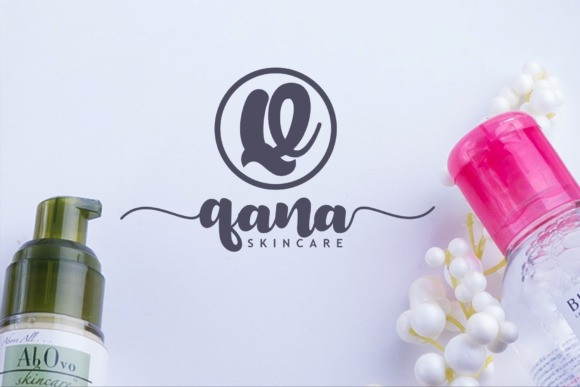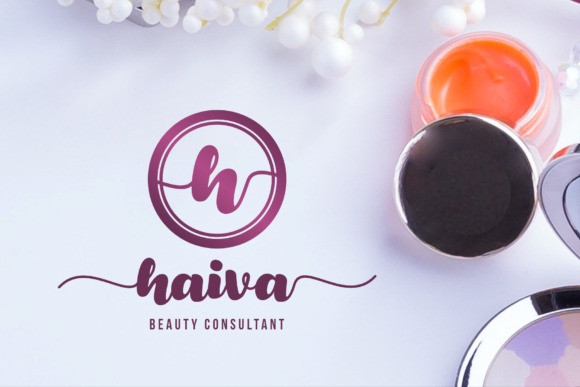
Meylani Script Font
Meylani feels equally charming and elegant. It looks stunning on wedding invitations, thank you cards, quotes, greeting cards, logos, business cards and every other design which needs a handwritten touch.
This font is PUA encoded which means you can access all of the cute glyphs and swashes with ease! It also features a wealth of special features including alternate glyphs and ligatures.